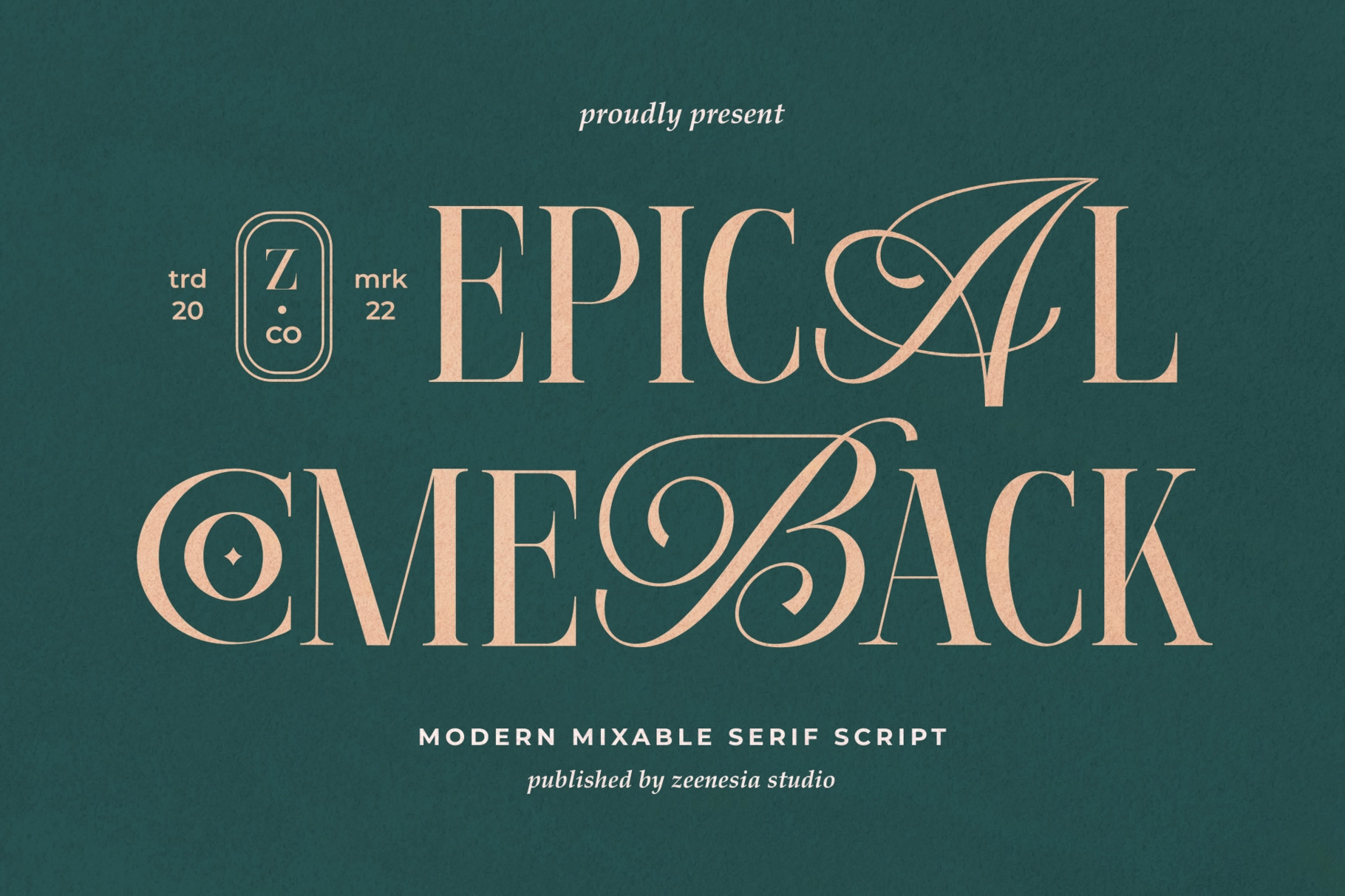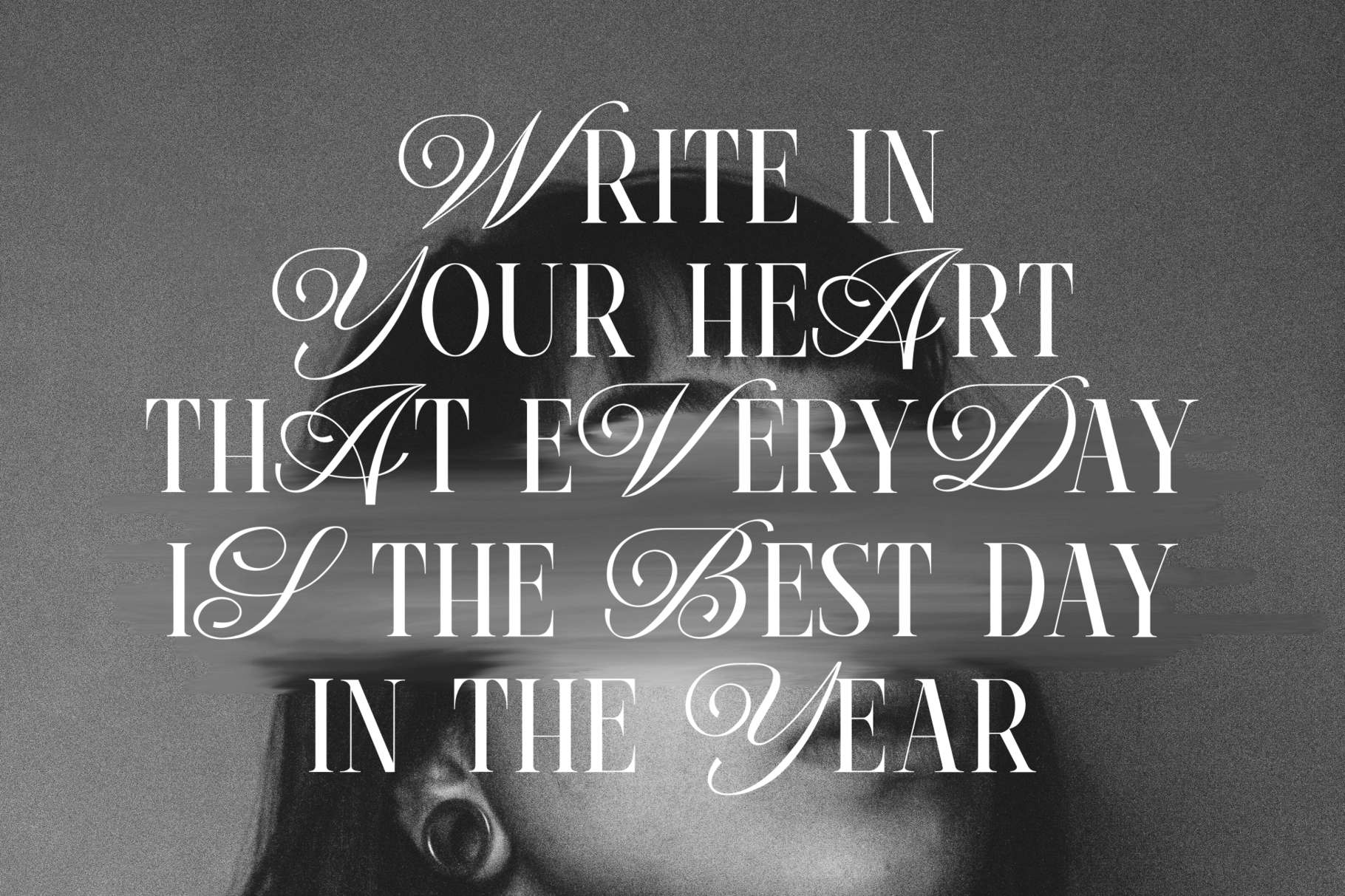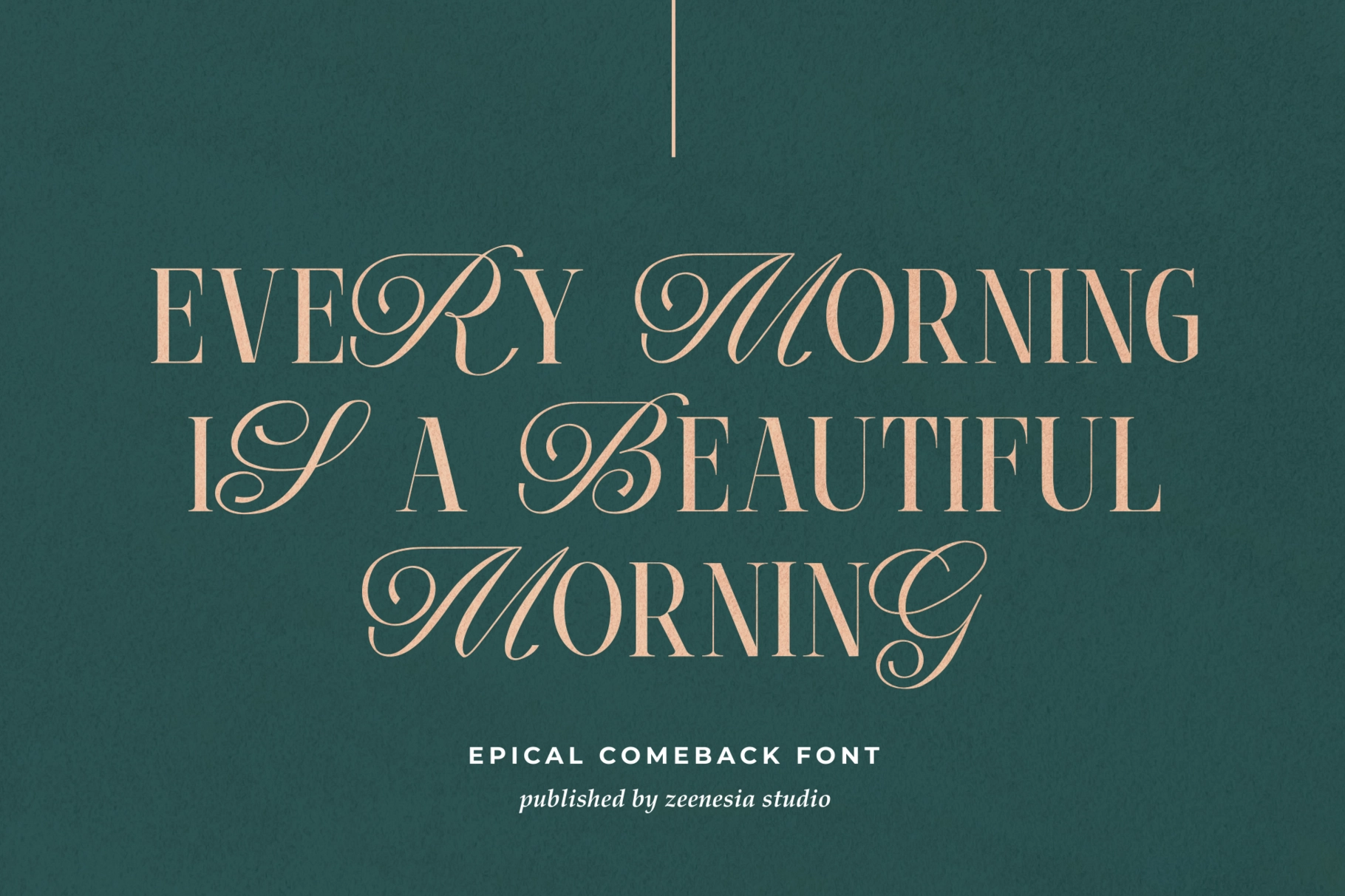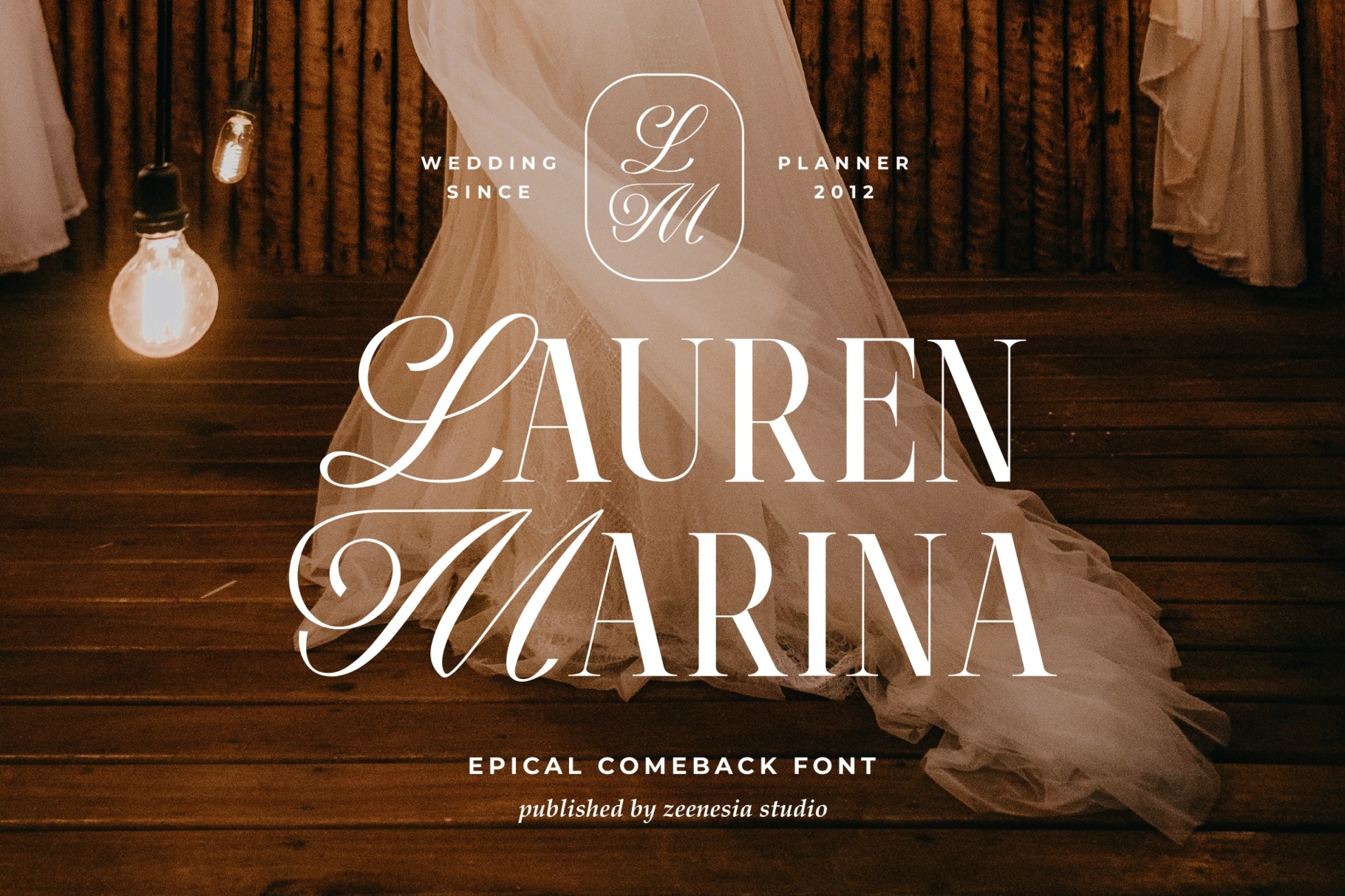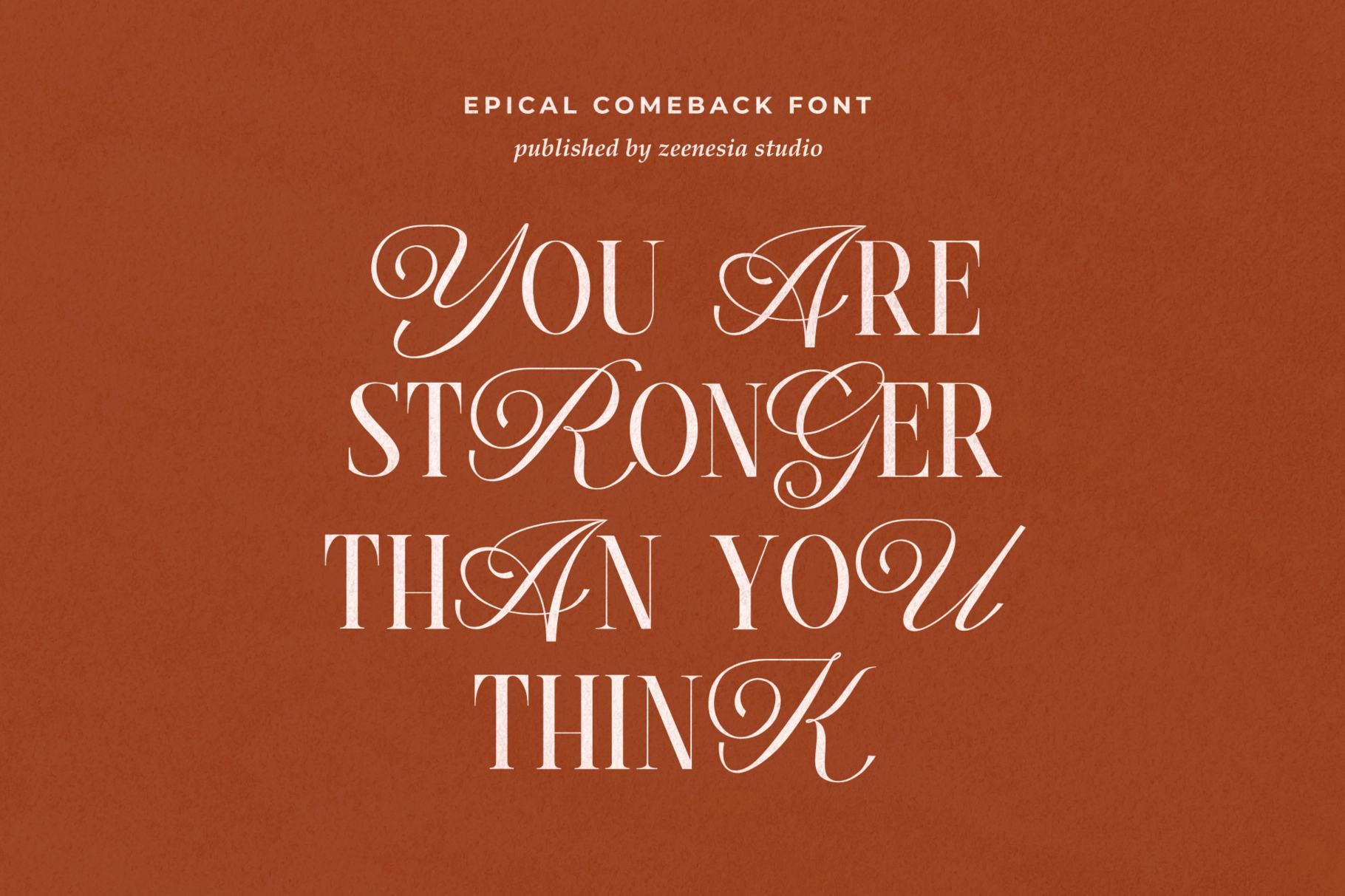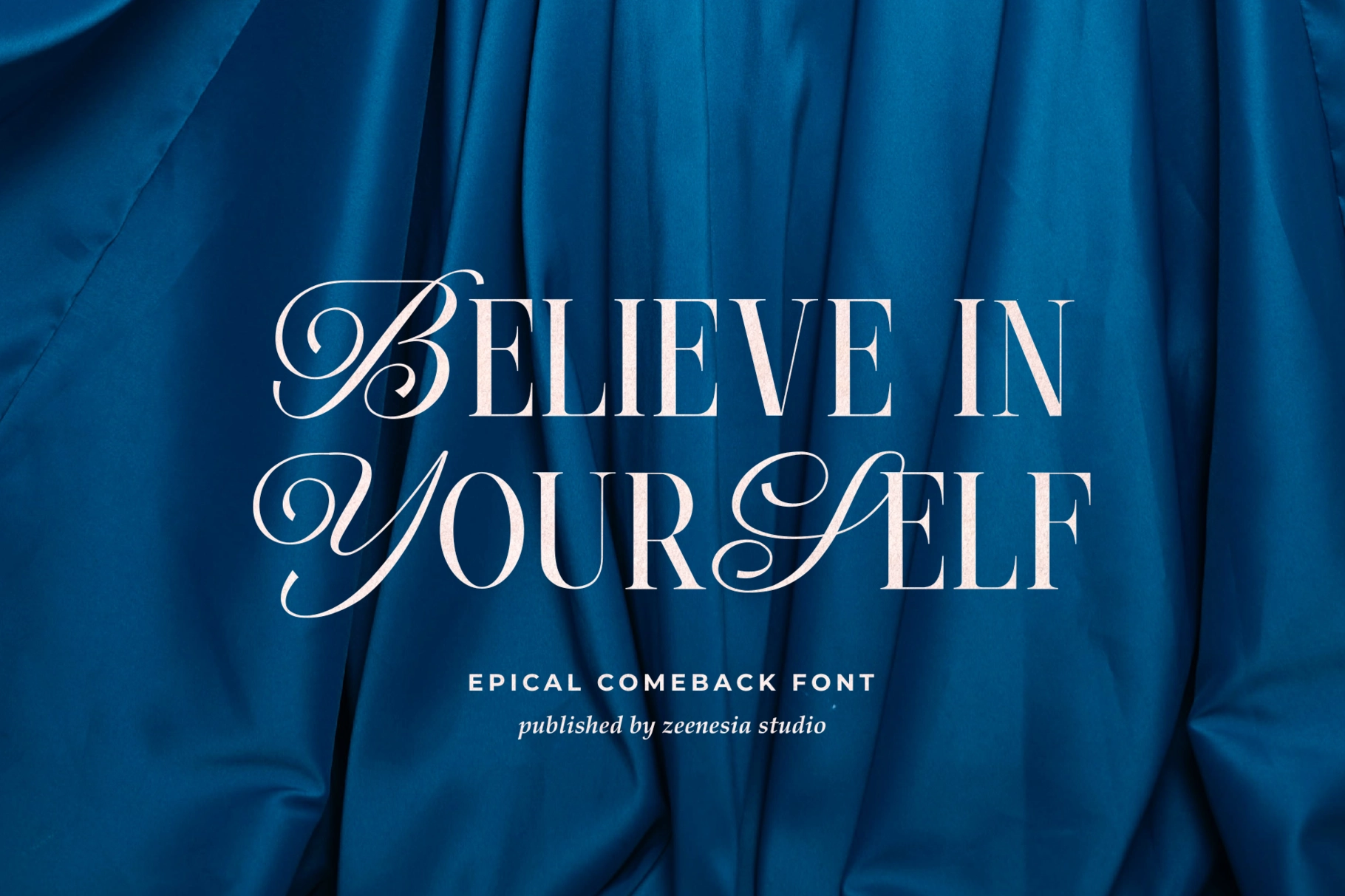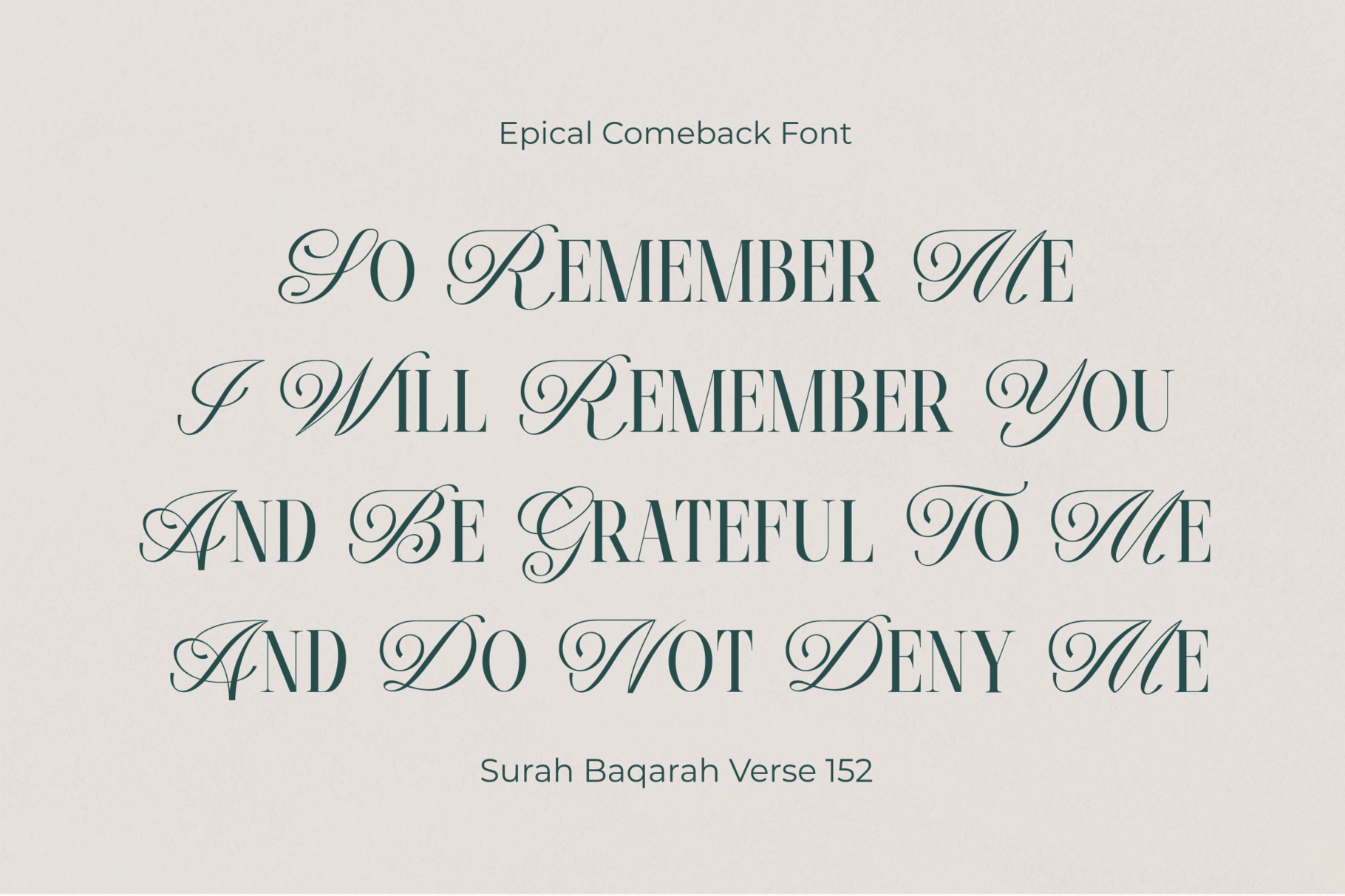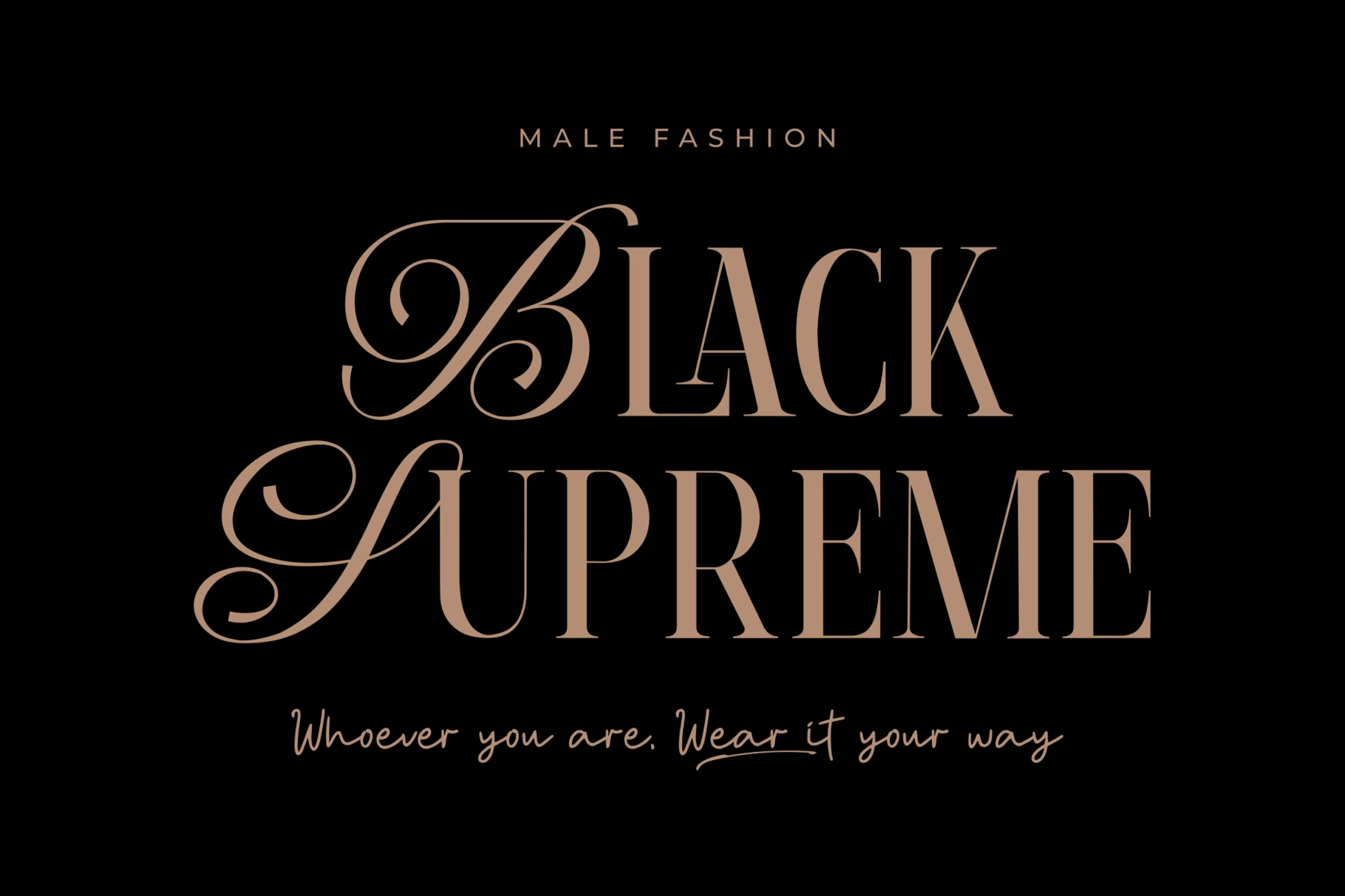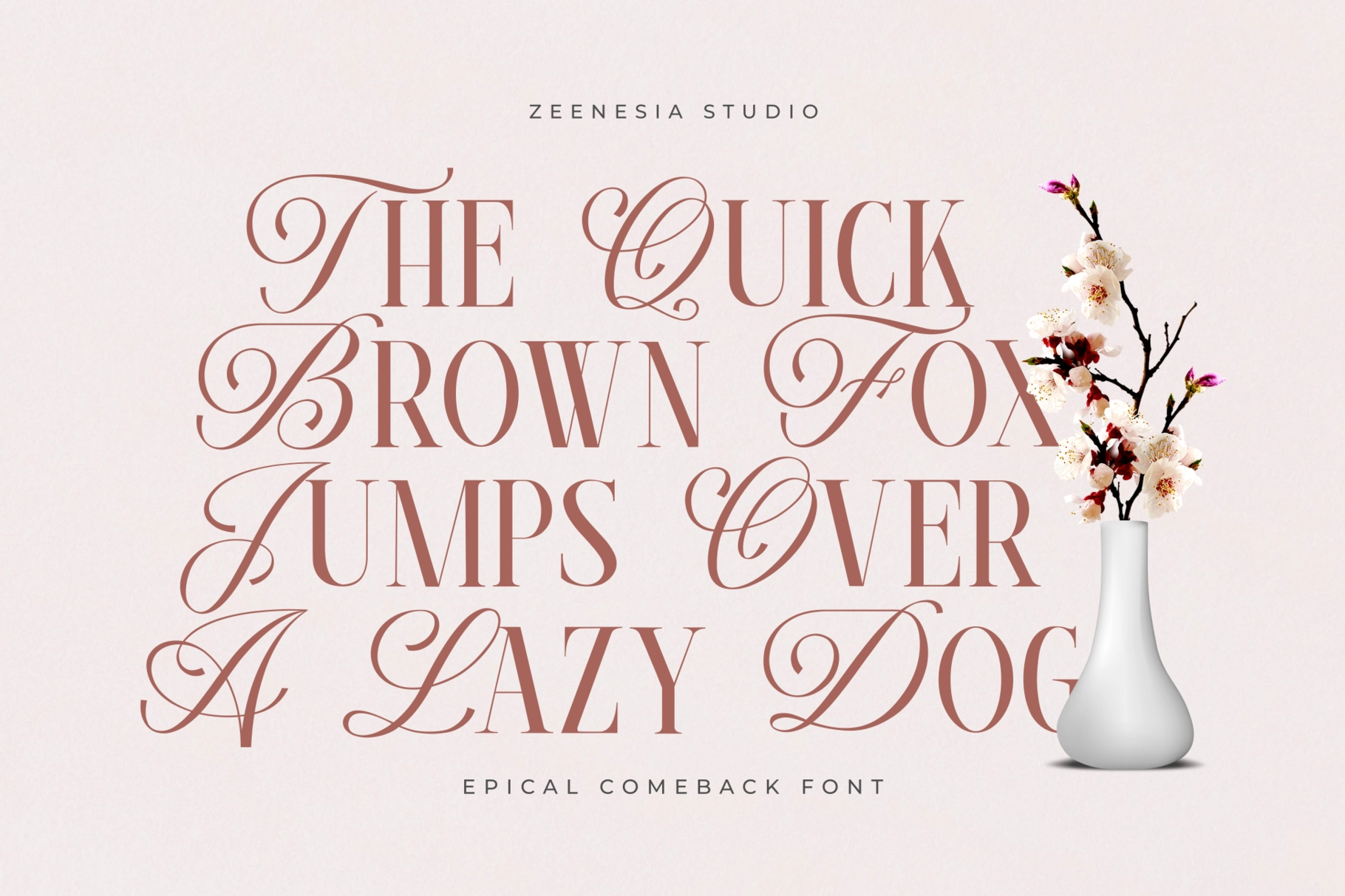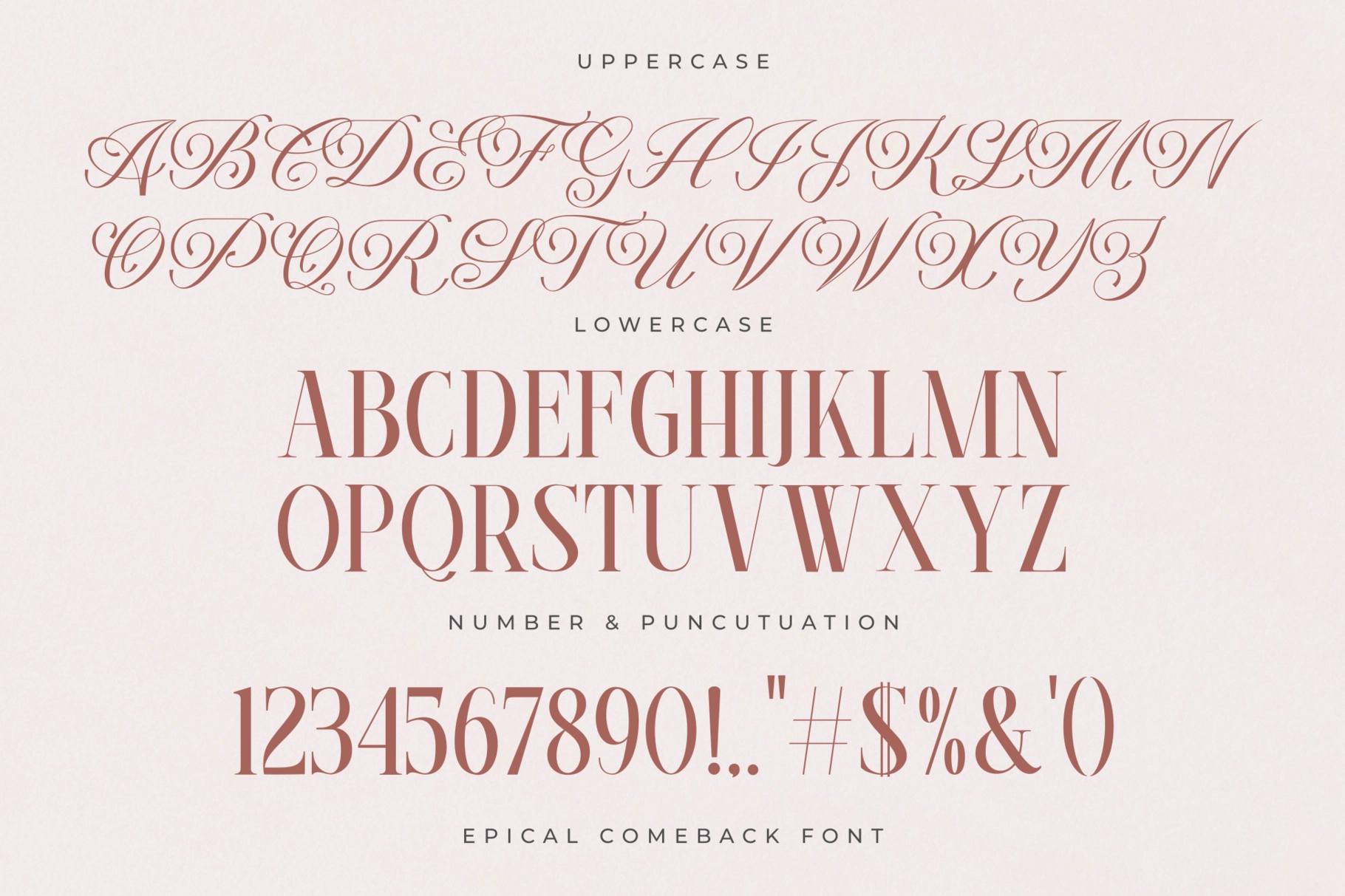
Epical Comeback - Elegant Calligraphy Serif Font
Epical Comeback
This calligraphy serif typeface combines sharp display forms with flowing script details for a decorative, expressive look. Its contrast between classic serif structure and lively swashes gives titles a stylish character suited for bold editorial and branding work.
Epical Comeback is ideal for magazine headers, logo design, fashion graphics, clothing prints, product packaging, beauty labels, social media quotes, poster titles, wedding stationery, boutique branding, book covers, photo overlays, and more. The mix of serif and script styling gives short phrases a distinctive rhythm with a polished, artistic finish.